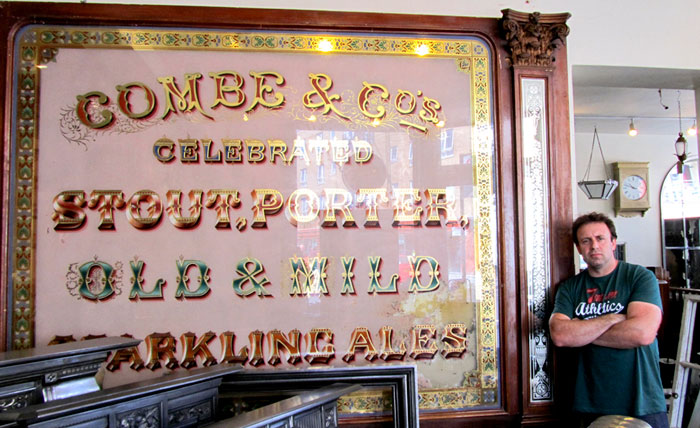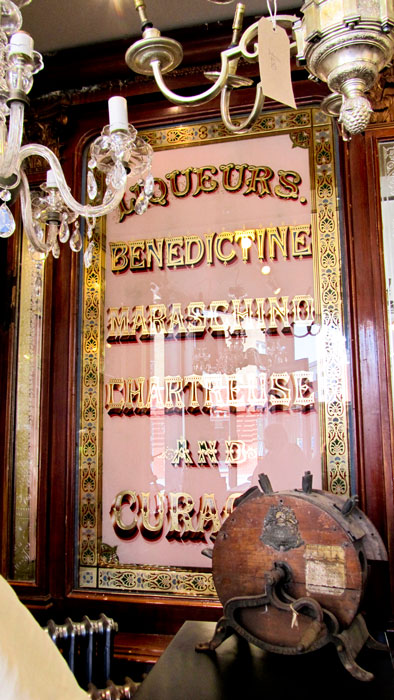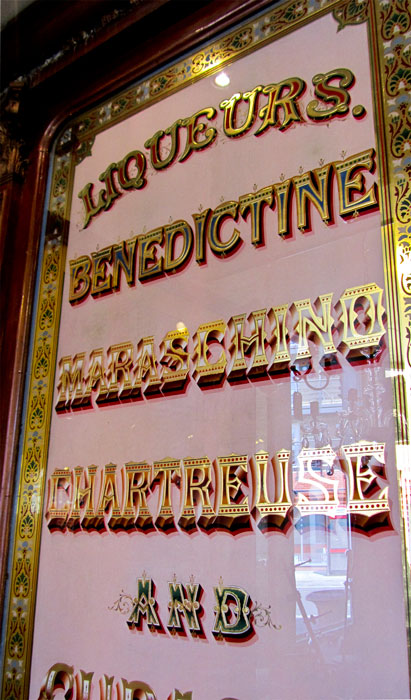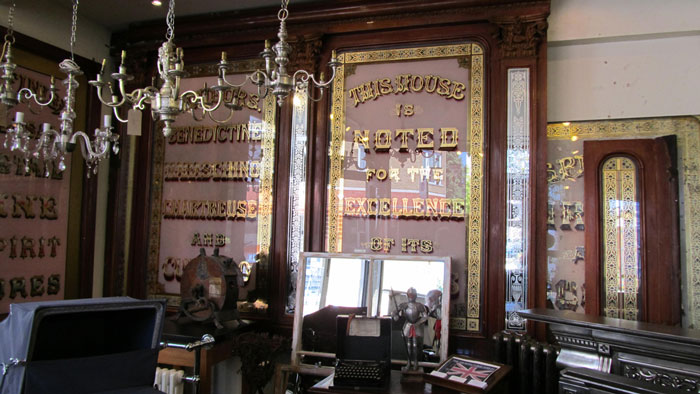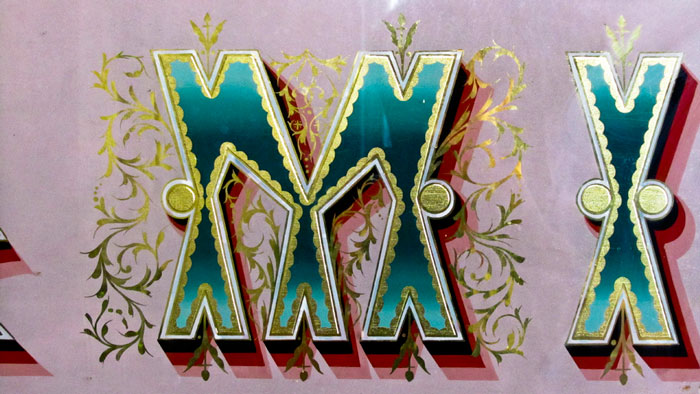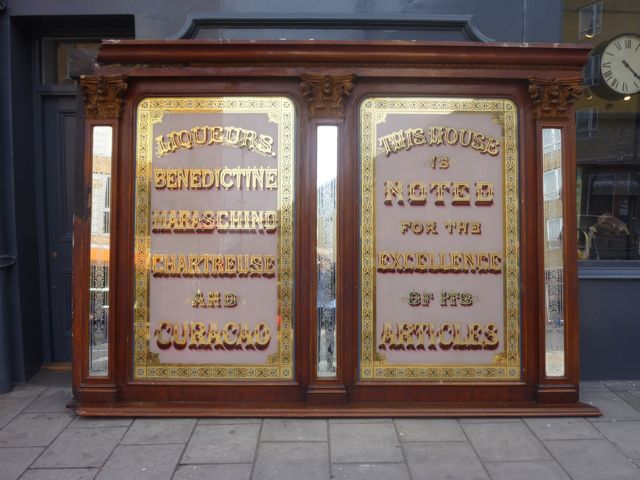
Just got back from a trip to your part of the world Ash and actually had a 5 second conversation with Perry as well. We just couldn't connect as my cell phone won't work over there and he was stressing over a job he was into ;=). I did manage a couple of days out with our pal Smitty and saw (as always) some amazing work. All this preamble is just to say what outstanding work was shown in the first post by you and Jeffery P. and what a great welcome home it all was to find work of this caliber and this little BB being used by such a diverse group. The information/techniques also were of huge interest.
a shot in front of a world class ale house with my son far right and Dave on my left.....(what the heck it was here)
and a preview of one of the many things I saw there....much more to come.
Glad to see you've been off trompin' around snap'n shots. I see you got one of the troll as well, even visited his golden lair and escaped with your life!
You know, he sucks the talent out of his victims- How else can that bloke be SO good?
Great little "teaser" photo you added with it's hypnotic drop shadows. Just a hint of what's to come? I'll surely be waiting to see more.
We sure did have a good time Doug and seen many fine glass signs and carving work.
I took Doug to meet a couple of antique dealers that had been involved in alot of removal of original glass work from
London pubs and had sold them to dealers and businesses over the years. These guy's showed us directions to another salvage and Architecturual business in the London area that had some beautiful amazing reverse glass signs for sale. After walking up and down a main rd for an hour we walked into the front shop area of the business to find these incredible glass gems all 38 ft by 9 ft with original mouldings and carvings.
Beautiful and skillful work! A bygone era, fortunate they were saved.
I was focusing on the details and magnifying up the sections as big as I can on my Mac. After some time I was snapped out of
my "reverse engineering" mode when I found my mouth was as dry as a fresh tea bag. I dare you to study these pieces without your mouth hang'n open!
Please sir, can I have some more??
Hi Pat. I expected you to be on your way to old Larry's by now. Thought you would like these panels,they certainly do have the wow! factor to them.
The cost to buy all 38 feet of this glass is £20,000 + vat , probably cost that much just to ship them to you also. Doug and I was thinking the maker is the same as The Old Blue Last signs a chap called Kelly. I bet he could'nt wait to roller on that pink background and finish up.....
Troll.
These guys were sick in the head, to make this you had to be!
I just can not imagine making this cummulation of techniques, when you do not have an example who showed you that this was possible: Pure geniousus.
Here is some extra information about it:
Reclaimed antique victorian pub mirrors dating from 1876. Removed from The Finish public house in Bermondsey SE1 London. 38 running feet of eight exceptional quality acid etched mirrors with gold leaf writing and mahogany frames with gilded capitals.
The mirrors were exhibited in 1951 at the whitechapel gallery folk art show called Black Eyes and Lemonade.
Image shown is 12ft x 9ft high
available 38ft x 9ft high
Pheeeeeeeeew.